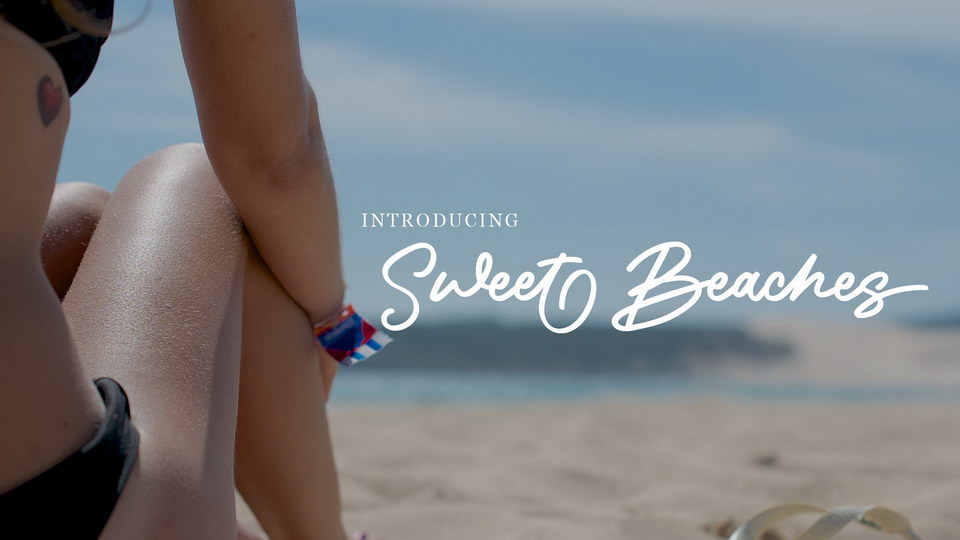
Feb 14, 2025Script & HandwrittenSweet Beaches Script Sweet Beaches is an elegant handwritten script font. It’s perfect for luxurious designs but can also be used for logos, invitations, quotes, cards, greeting cards, business cards, video title and many more. Font DetailsDesigned by: Stefie JustprinceWebsiteLicense: Free for personal use Download Sweet Beaches ScriptFile size: 42.82 KBCreated: February 16, 2025Updated: February 16, 2025 Download Explore similar fonts Aesthetic Shine Font Autograph Westhelin Font Biancha Font Jareth Signature Font Cimlajin Font Arthur Meridian Font # Casual# Cursive# Fashion# Handwriting# Signature# Wedding More fonts by Stefie JustprinceRock Jack Writing FontSahabat Kecil TypefacePixelify Sans TypefaceOrabelle ScriptSour Gummy TypefacePuffy Font